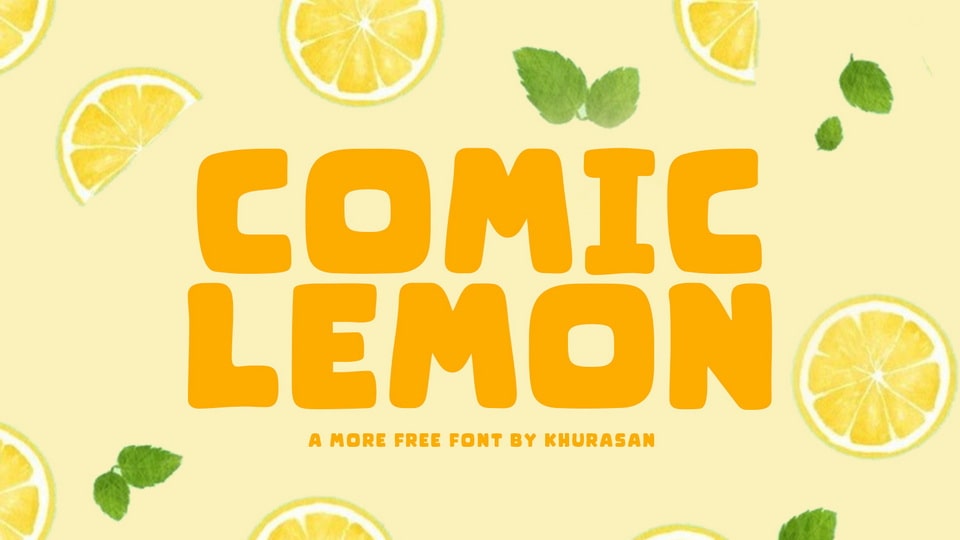
Download Comic Lemon is a handcrafted cartoon font filled with a bold yet fun vibe. Add an eye-catching and whimsical touch to your designs with Comic Lemon font.